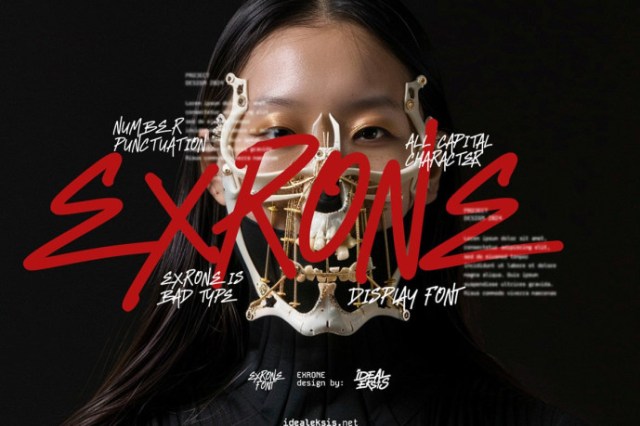
Exrone – Display Font
Designer: Idealx
Exrone – Display Font with raw strokes and rebellious energy. Its aggressive all-caps style is perfect for posters, streetwear, album covers, branding, and any creative project that demands a strong, edgy statement.
Feature :
• Uppercase (All caps)
• Punctuation